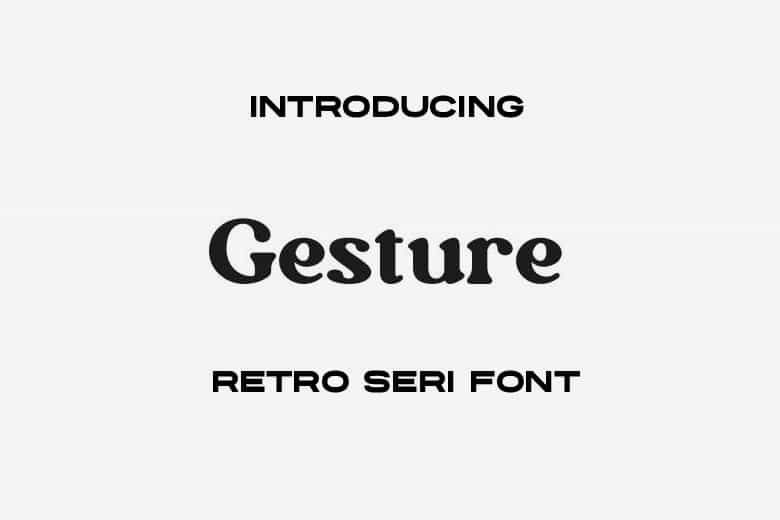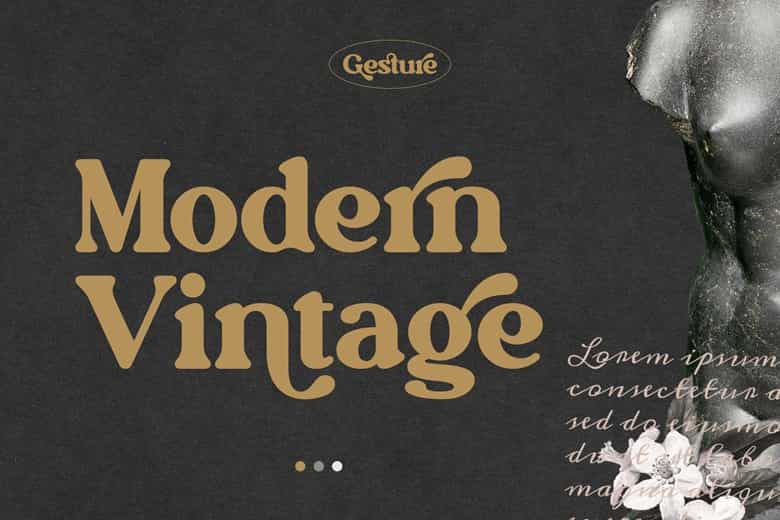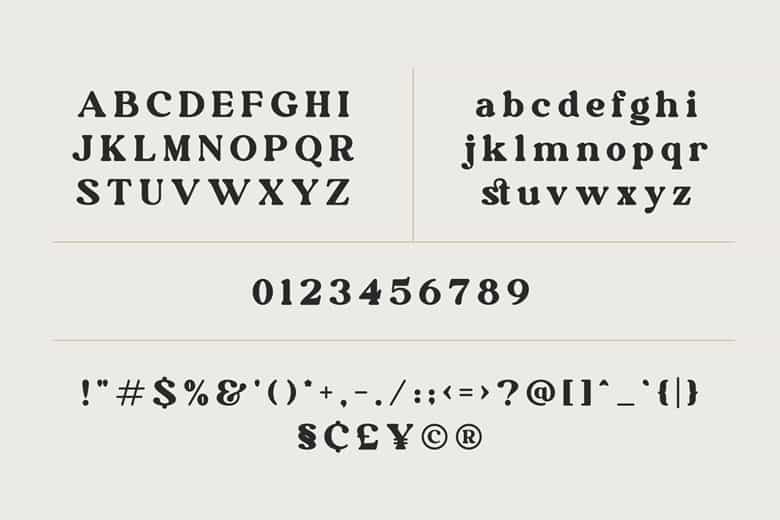
Gesture is an elegant retro serif typeface which has a modern and vintage feel. Total number of glyph is 255 and more than 50 alternates and ligatures to give a vintage feel to that font. Gesture would be a perfect choice for branding, logo design, web design, poster or magazine, fashion, etc.